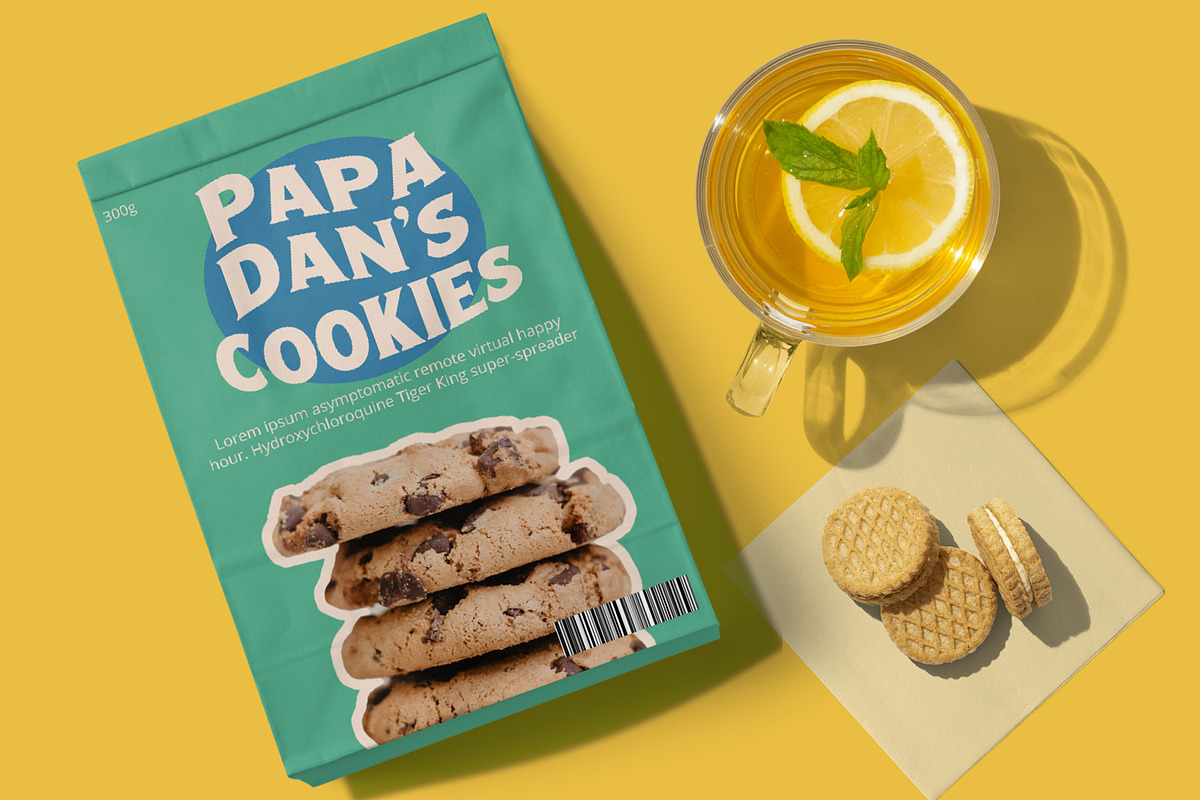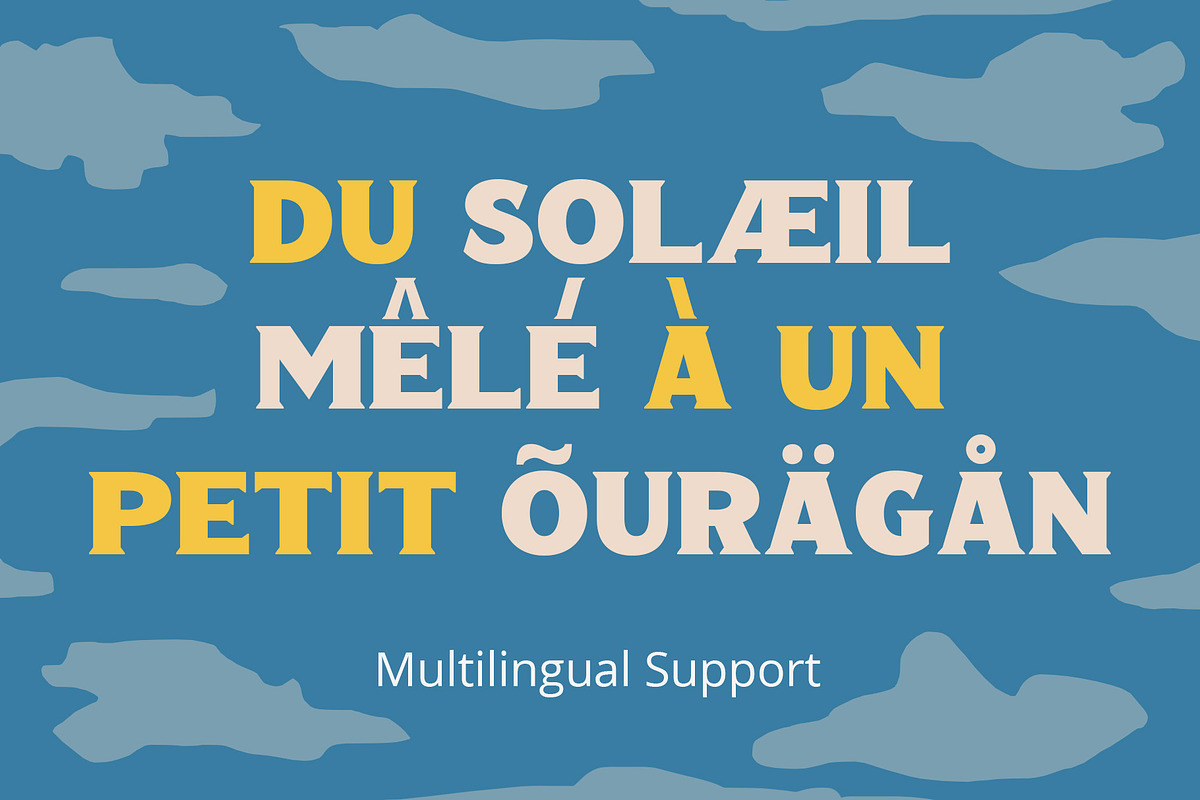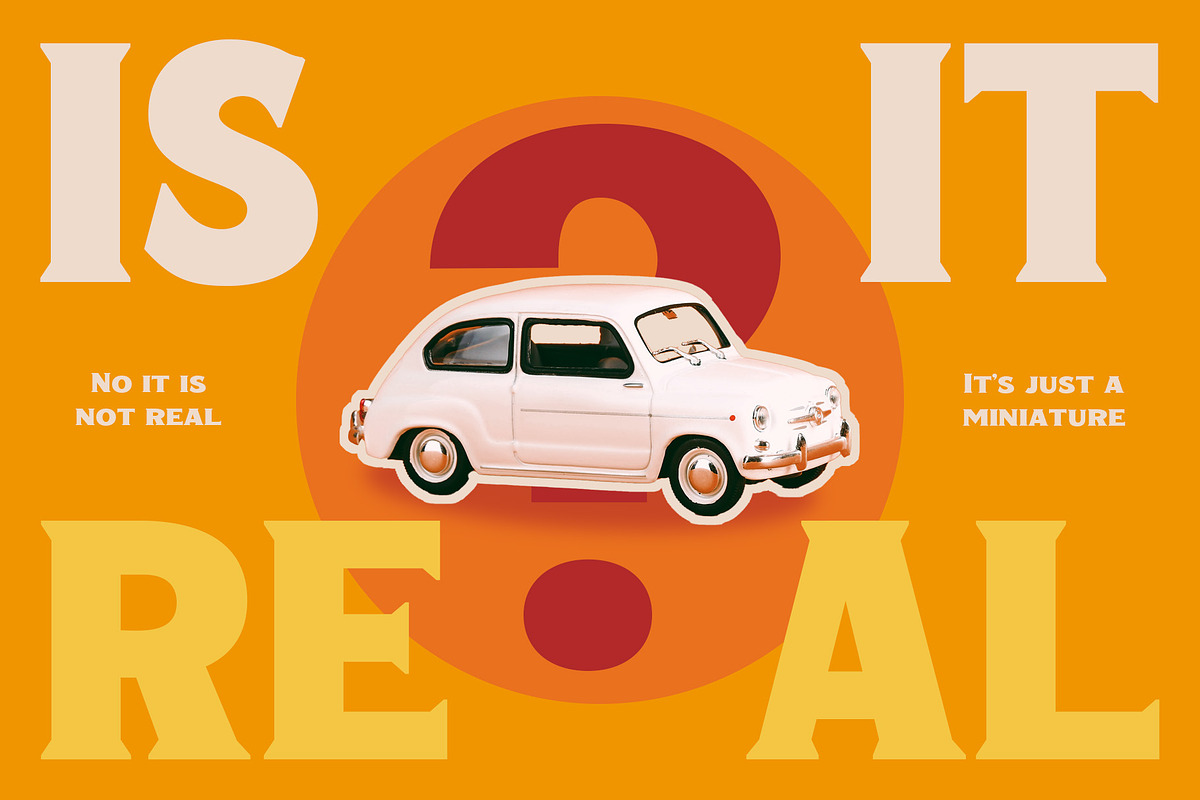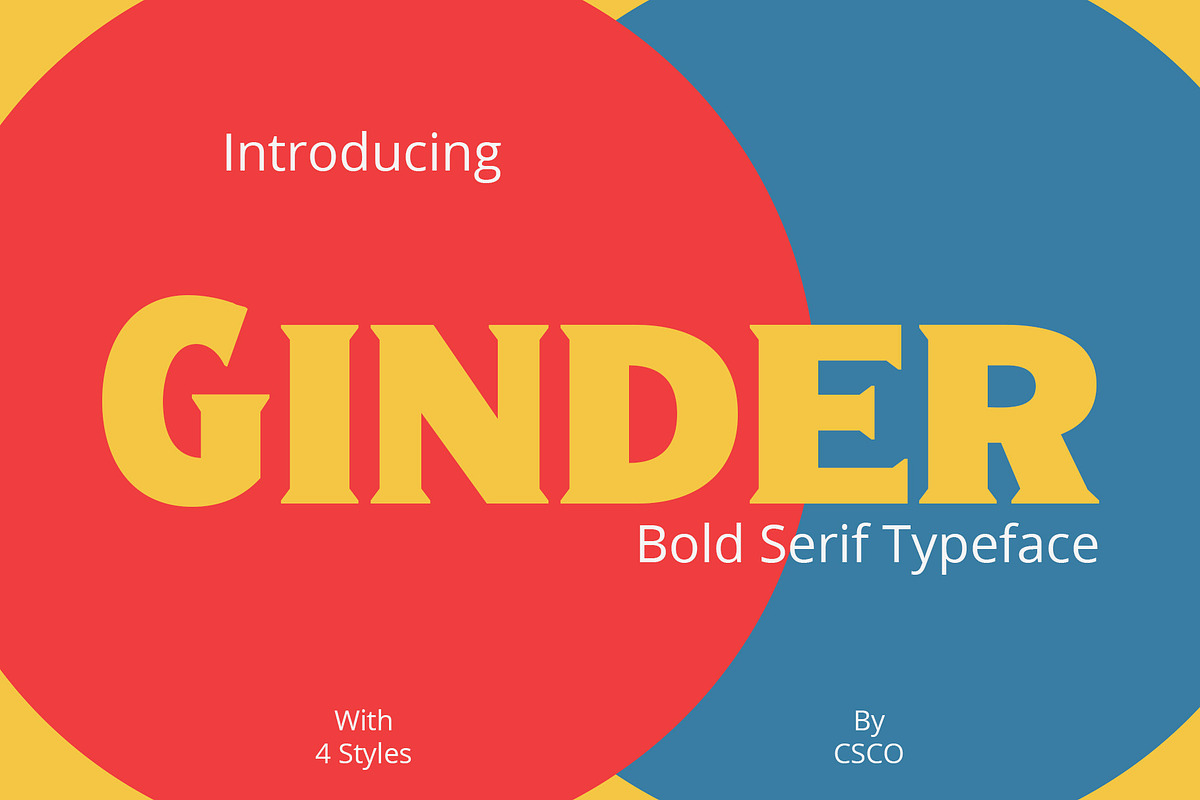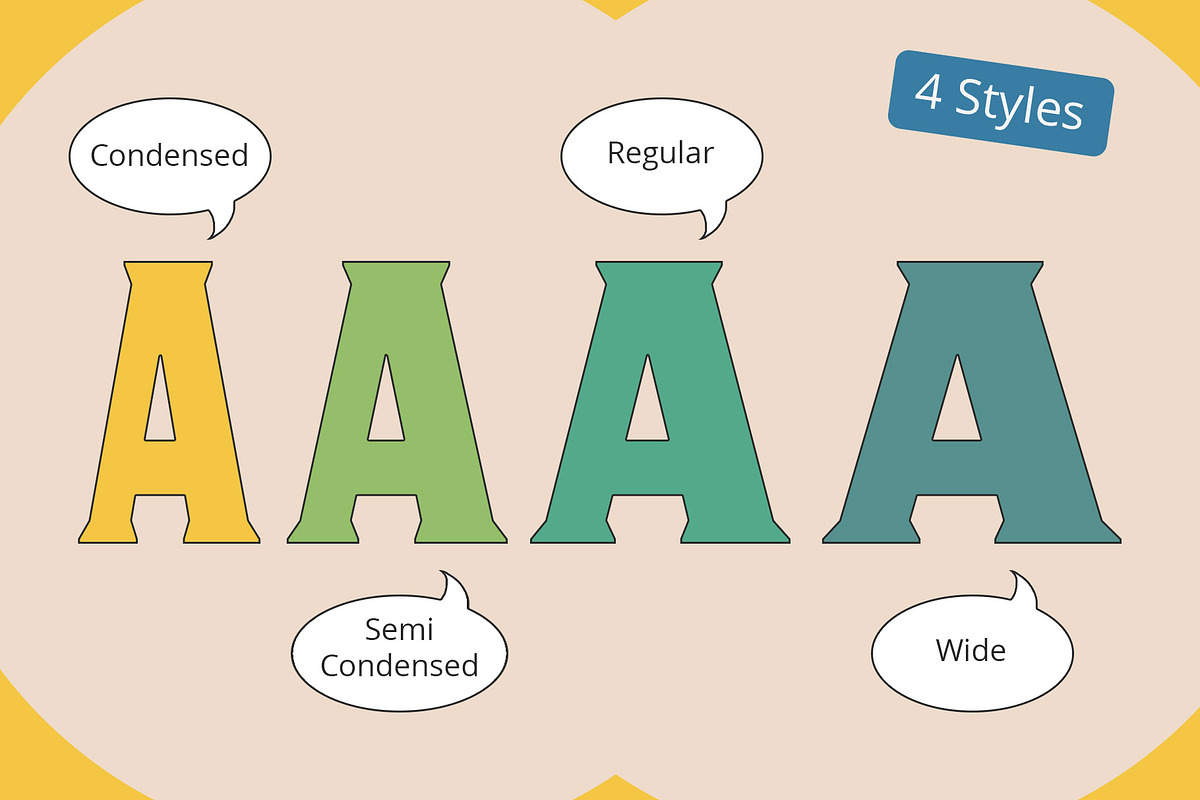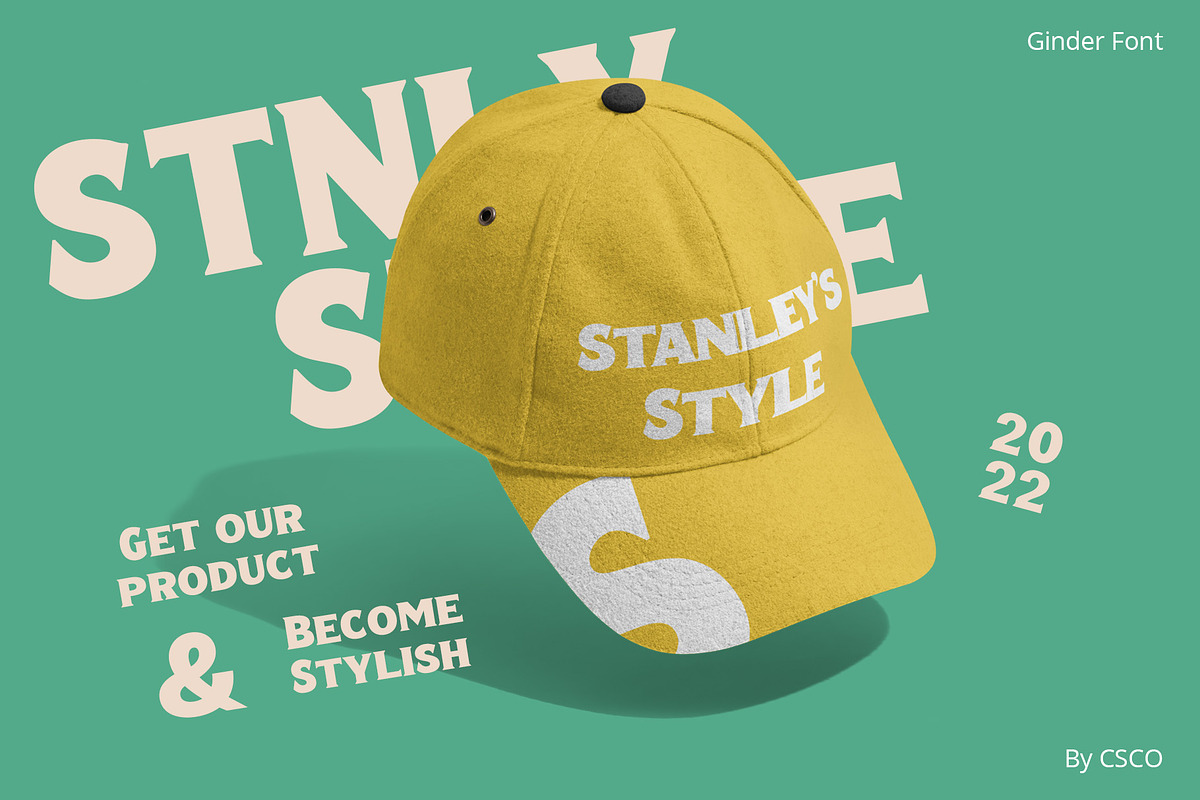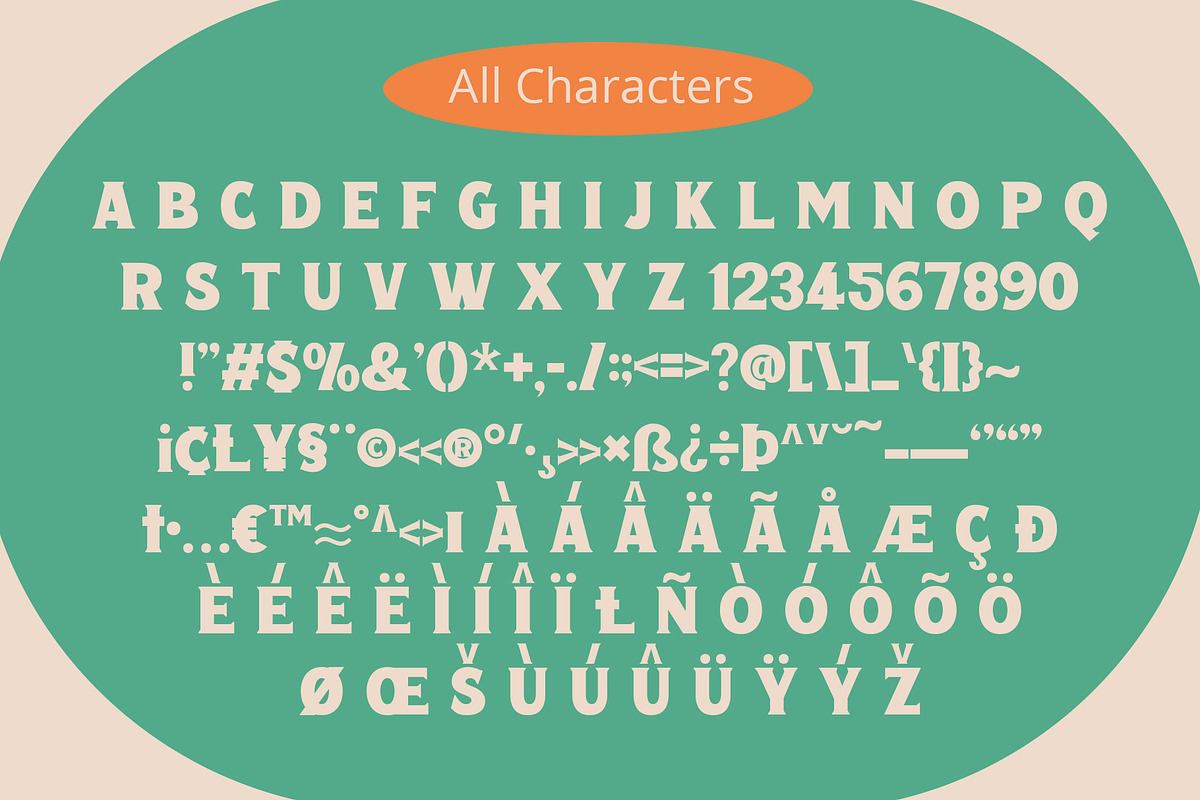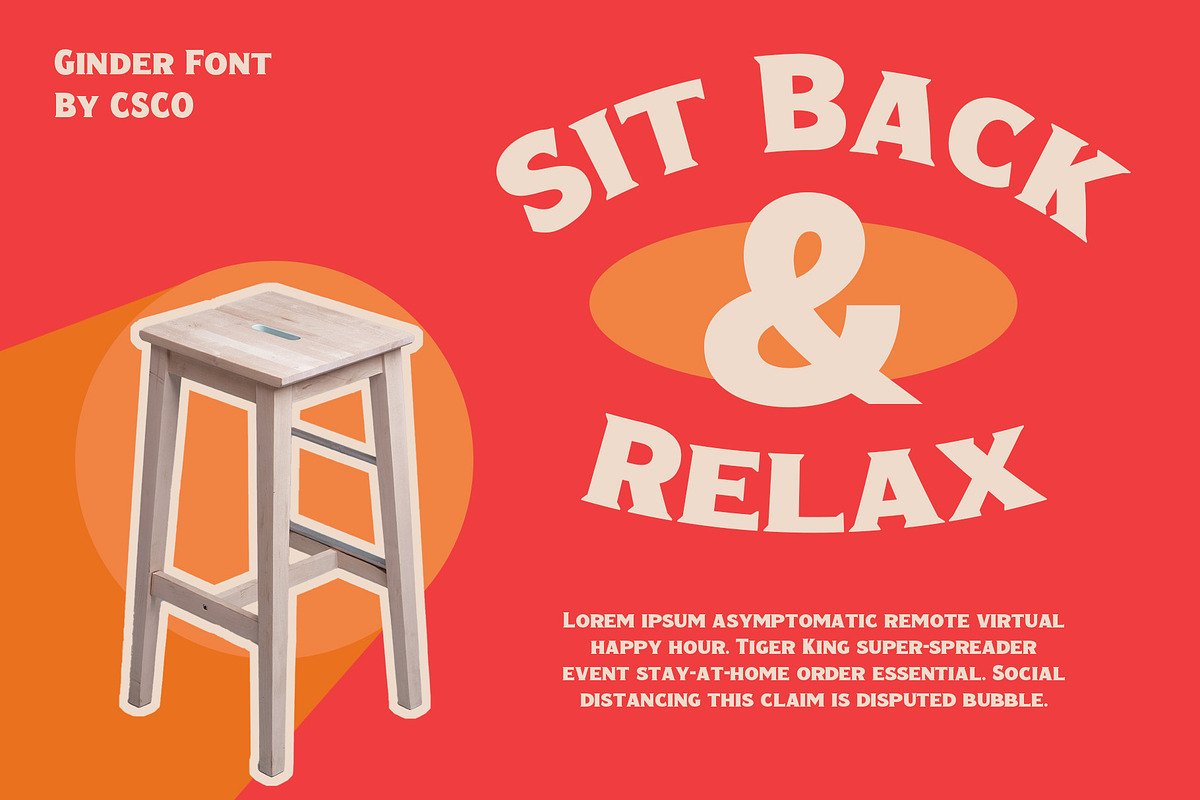
Ginder – Bold Serif
Ginder – Bold Serif Font: Striking and Versatile
Bold and Commanding Presence: Ginder – Bold Serif Font stands out with its strong, bold character. It’s perfect for titles and posters needing a powerful impact. This font captures attention effortlessly.
Ideal for Titles and Posters: With its robust design, Ginder excels in creating striking titles and posters. It enhances visibility and readability. This font is a top choice for impactful visual designs.
Adaptable Across Mediums: Despite its boldness, Ginder is surprisingly adaptable. It works well in both digital and print formats. This versatility makes it a valuable tool for various design projects.
- Ginder Condensed
- Ginder Regular
- Ginder Semi Condensed
- Ginder Wide